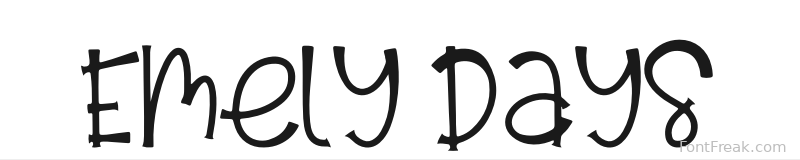
Emely Days
Emely Days is a delightful display font created by Perspectype Studio, designed to bring a playful yet elegant touch to various projects. As a decorative typeface, it features whimsical letterforms with a hand-drawn aesthetic that captures attention and adds personality. The strokes are characterized by a moderate weight and subtle variations in contrast, lending a unique charm while remaining legible. The spacing is thoughtfully arranged to ensure readability without sacrificing the font's artistic flair. Decorative elements, such as rounded edges and quirky letter shapes, contribute to its inviting appearance.
This font is ideal for a range of creative applications. It shines brightly in wedding invitations, where its joyful character can evoke a sense of celebration and love. Emely Days is also perfect for children's book covers, infusing the text with a sense of fun and imagination. Additionally, it can enhance restaurant menus, making the dining experience feel more approachable and enjoyable. Graphic designers will find it a valuable asset for branding projects, as it reflects a distinct style that can resonate with target audiences. Content creators can utilize this font for social media graphics, ensuring their posts stand out in a crowded feed.
What truly sets the Emely Days font apart is its unique blend of playfulness and elegance. Its distinctive style can breathe life into any project, making it a must-have for anyone looking to make a memorable impact. Don’t miss the opportunity to elevate your designs with this charming typeface—Emely Days font free download is just a click away.